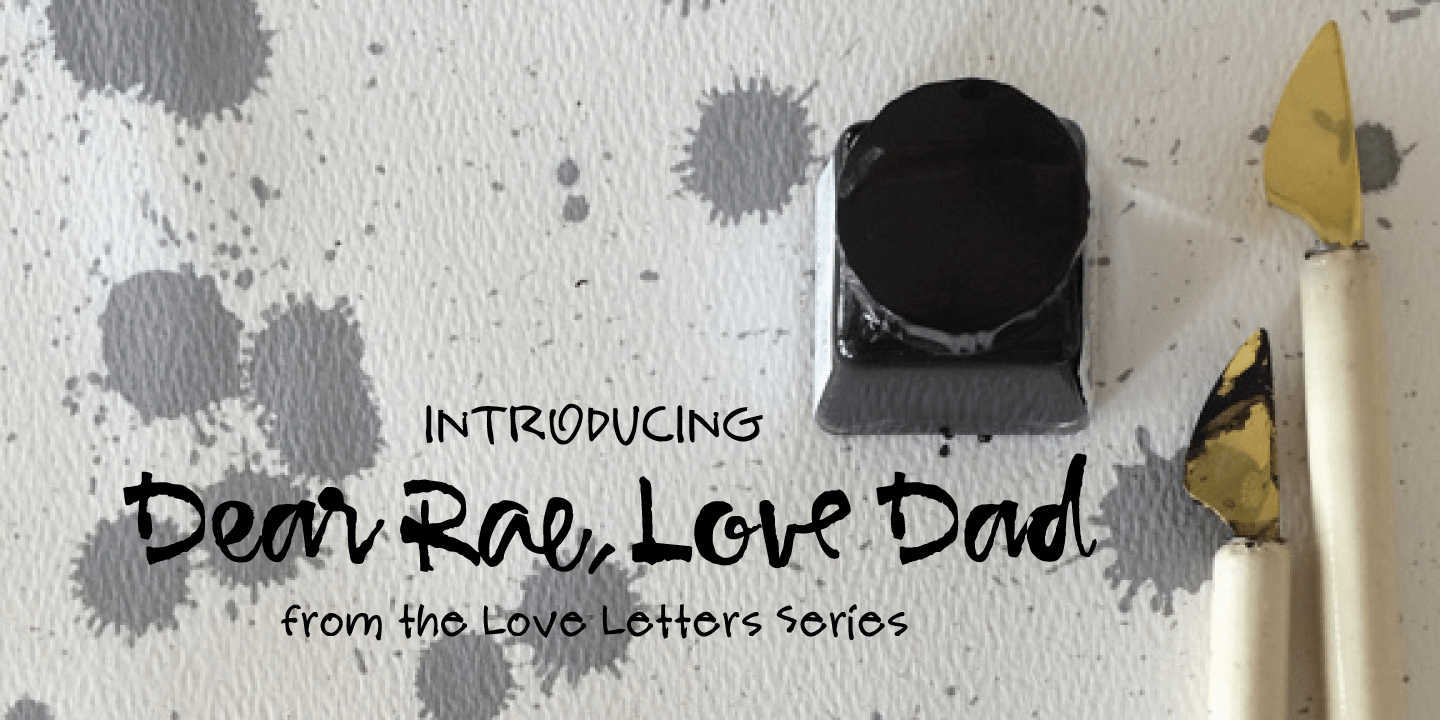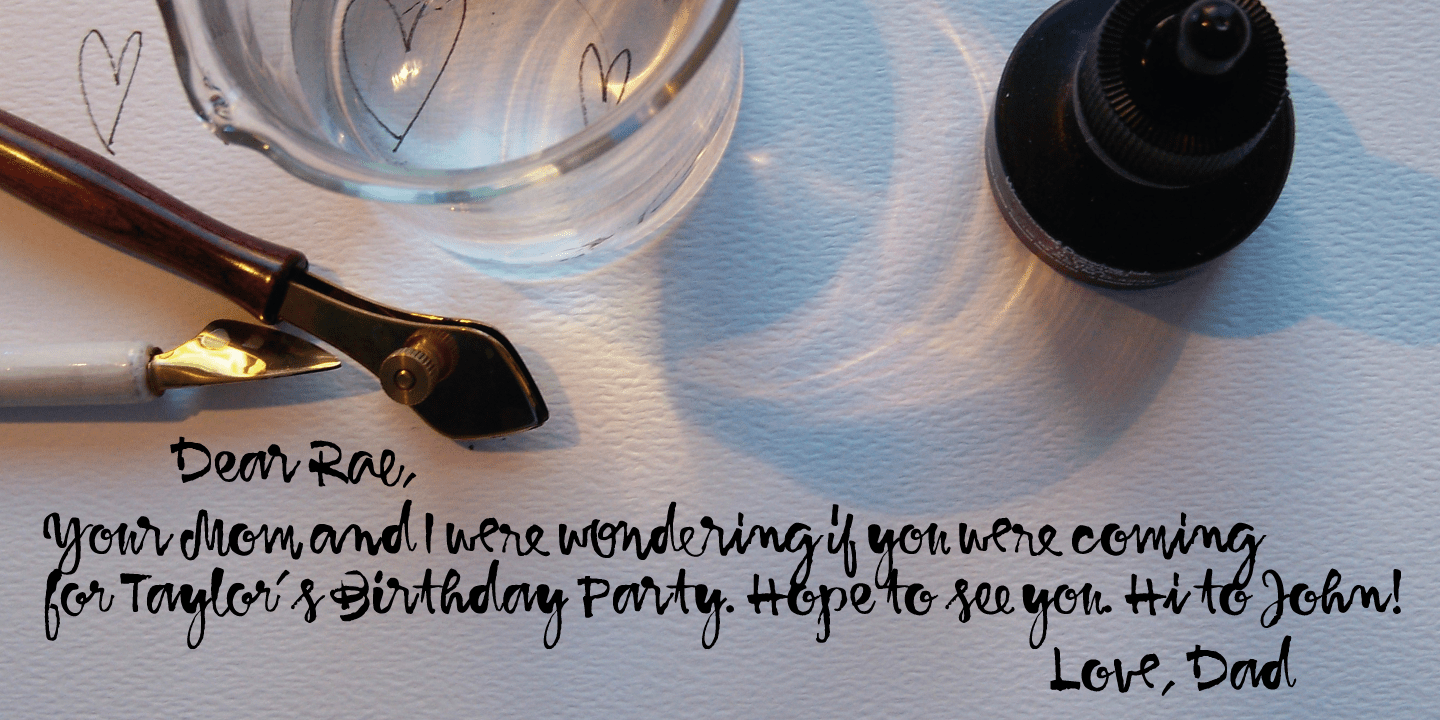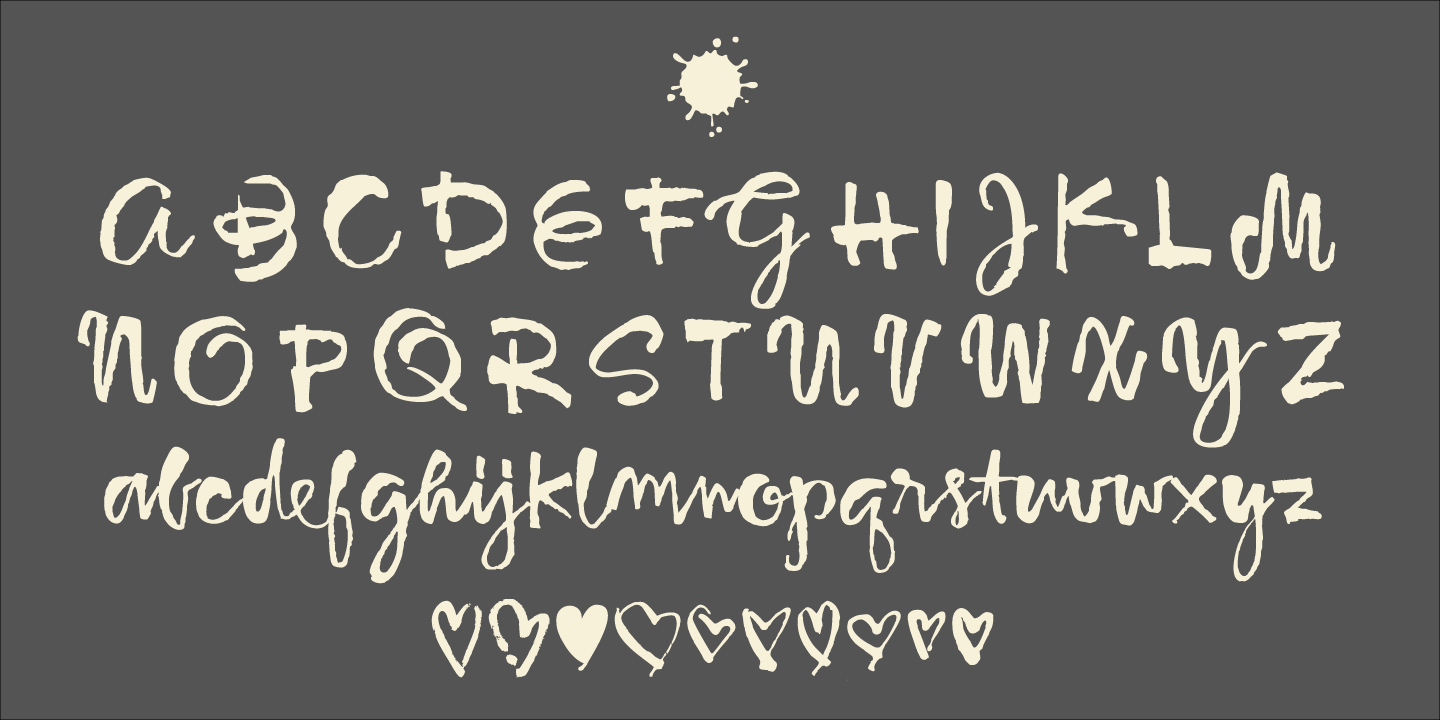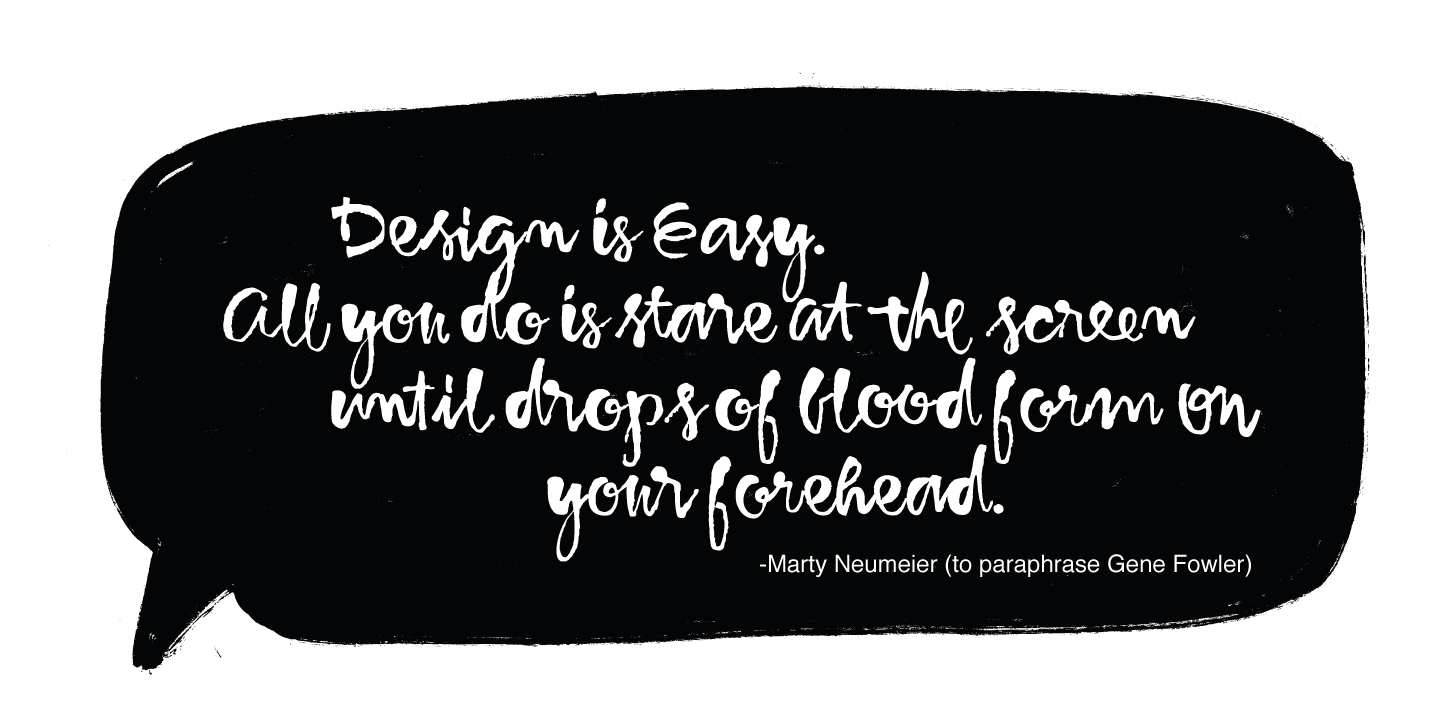
Dear Rae, Love Dad
Buy NowDear Rae, Love Dad is a modern calligraphy font drawn by hand using ink and a folded nib dip pen on rough watercolour paper. Upright, dramatic, and personal, it is named Dear Rae, Love Dad because who wouldn't like to get a letter signed, "Love Dad."